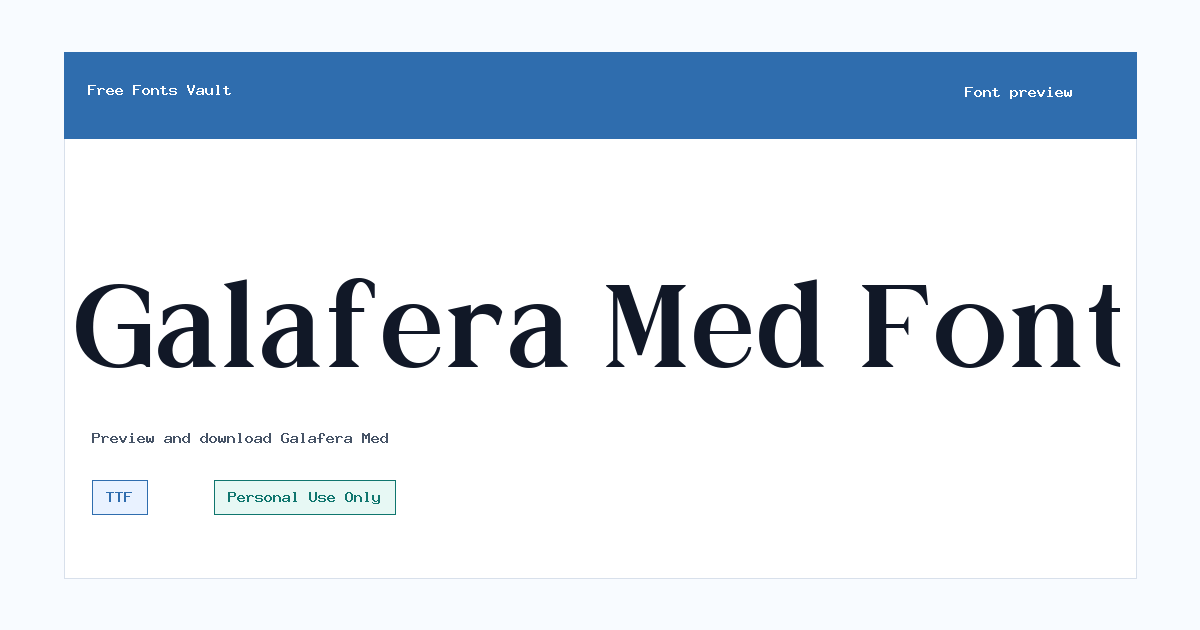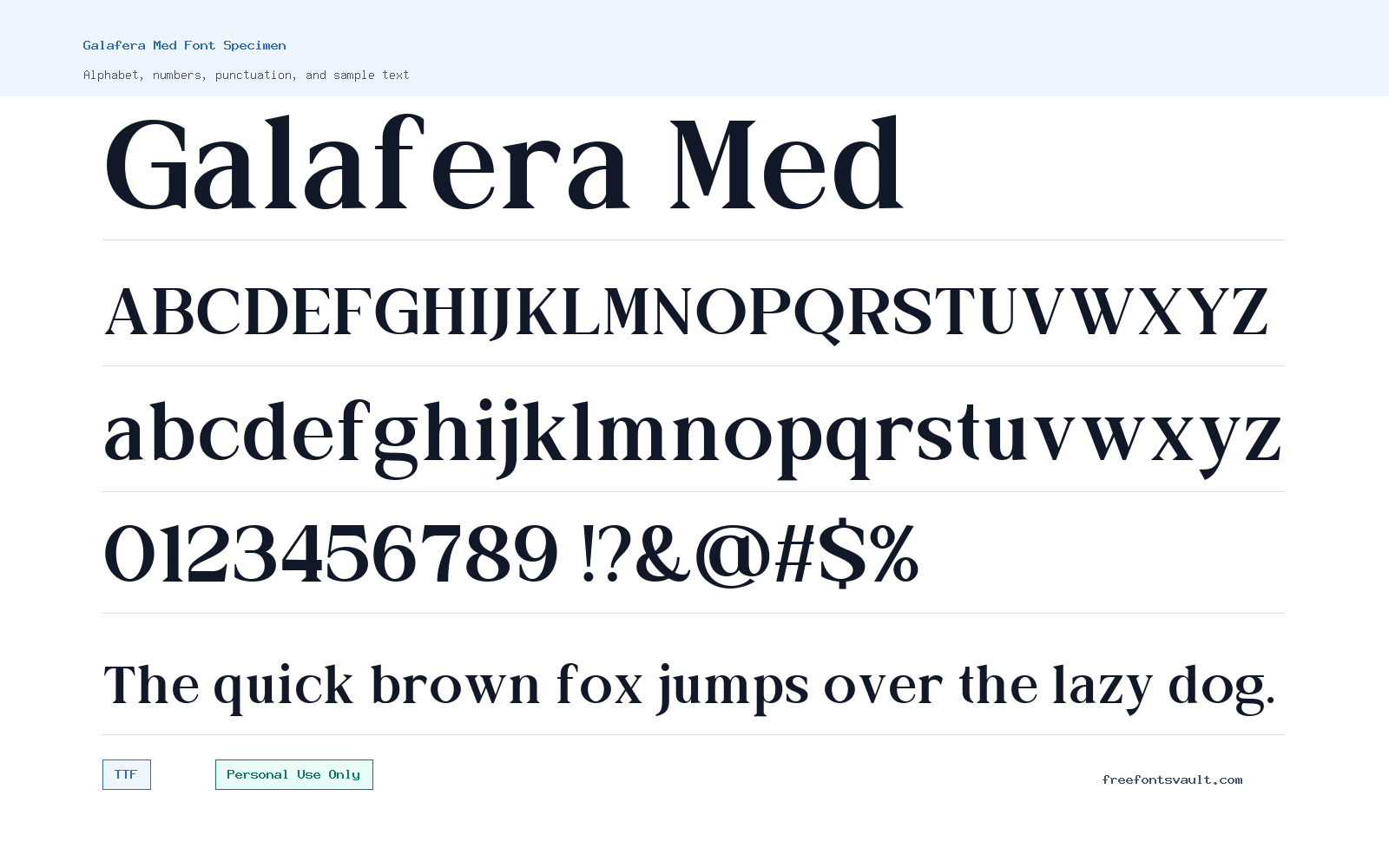
Galafera Med
- Designer Say Studio
Galafera Med is a medium-weight serif font family by Say Studio, offered in regular and italic styles for personal-use projects.
Galafera Med has the steady presence you expect from a serif typeface, with enough weight to feel clear in headings, quotes, and display text. The medium weight gives it more body than a light editorial serif, while the matching italic adds a useful second voice for emphasis, captions, names, or short supporting lines. Because the family comes as regular and italic TTF files, it is easy to test in common design tools, mockups, and local preview software before deciding whether it fits your layout.
Use Galafera Med when you want a serif look that feels composed rather than loud. It can work well for poster titles, elegant social graphics, editorial-style web mockups, invitation concepts, packaging drafts, boutique branding studies, and logo exploration. Keep your first tests focused on the exact words you plan to use: font personality often changes once brand names, initials, punctuation, and mixed-case headings are previewed together. For longer reading, test paragraph spacing and line height carefully, as many display-friendly serifs need extra breathing room at small sizes.
- Medium-weight serif style with regular and italic options
- Italic companion useful for emphasis, captions, pull quotes, and secondary text
- Logo concepts and wordmark drafts where a refined serif tone is needed
- Posters, title cards, invitations, and editorial-style headings
- Web and app mockups that need a serif display heading
- Social media graphics, mood boards, and personal branding experiments
- Short quotes, names, labels, and decorative text treatments
Start by previewing Galafera Med in the exact headline, logo text, or poster phrase you want to design. Try the regular style for the main title and the italic for contrast in a subtitle or small note. Pair it with a simple sans serif for body copy so the serif character stays focused in headings. Avoid using too many decorative or high-contrast fonts beside it, especially in small layouts, because competing display faces can make the design feel crowded.
Who designed Galafera Med?
Galafera Med is credited to Say Studio.
What font styles are included?
What is Galafera Med best used for?
It is best tested in short, visible text such as logos, poster titles, invitation headings, editorial mockups, quote graphics, and branding studies.
Does Galafera Med include an italic font?
Yes. A medium italic TTF file is listed alongside the regular medium style.
What should I pair Galafera Med with?
A clean sans serif is usually a safe pairing choice. Use Galafera Med for the main heading or brand text, then use the sans serif for smaller body copy, navigation, or details.